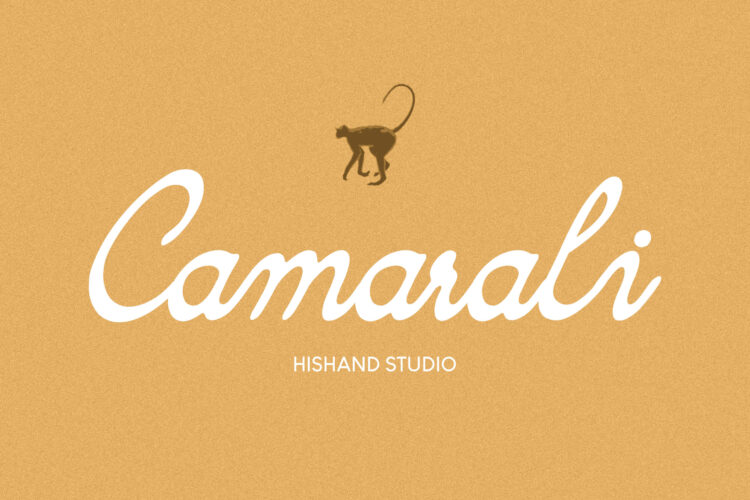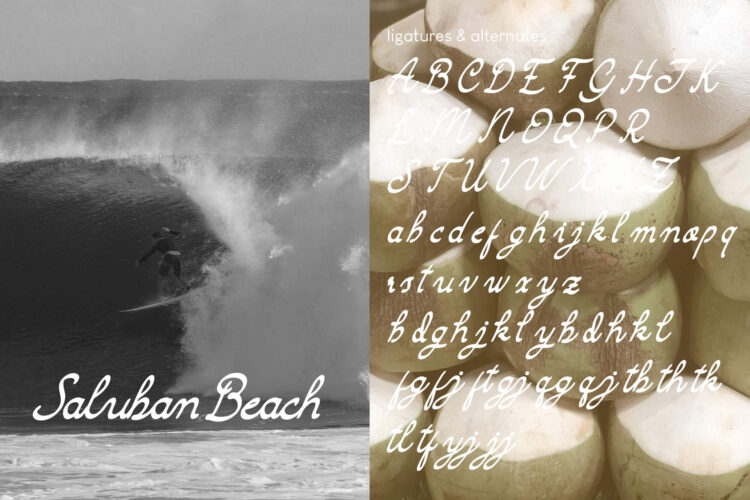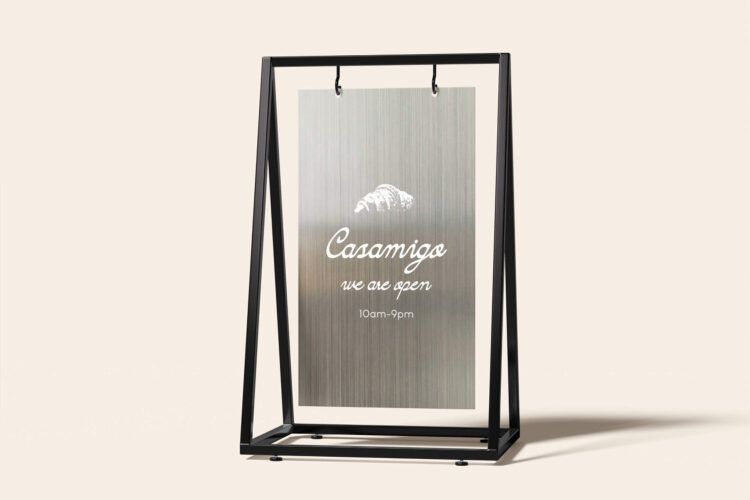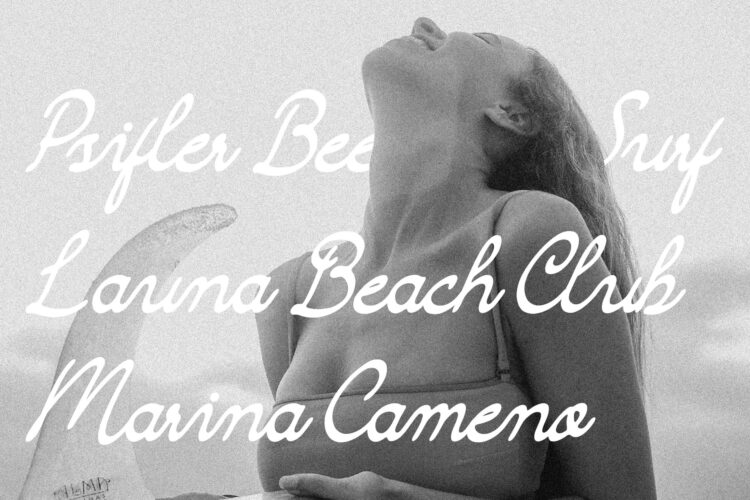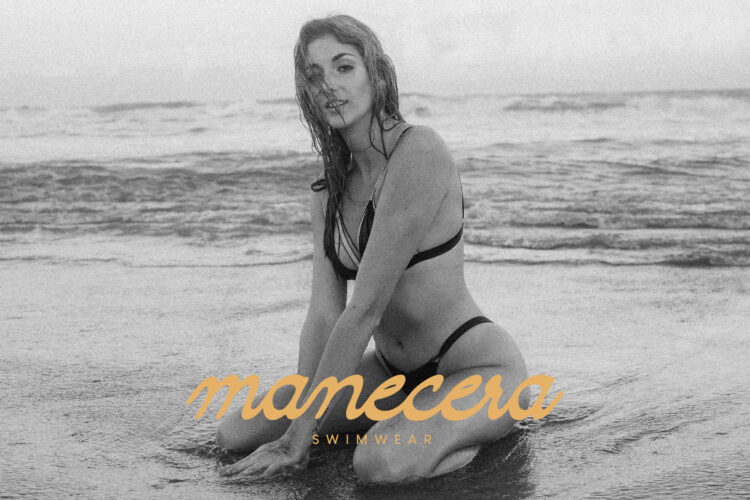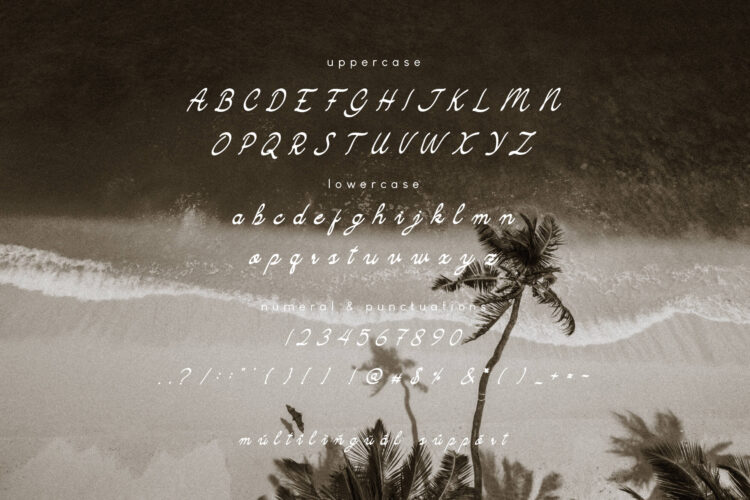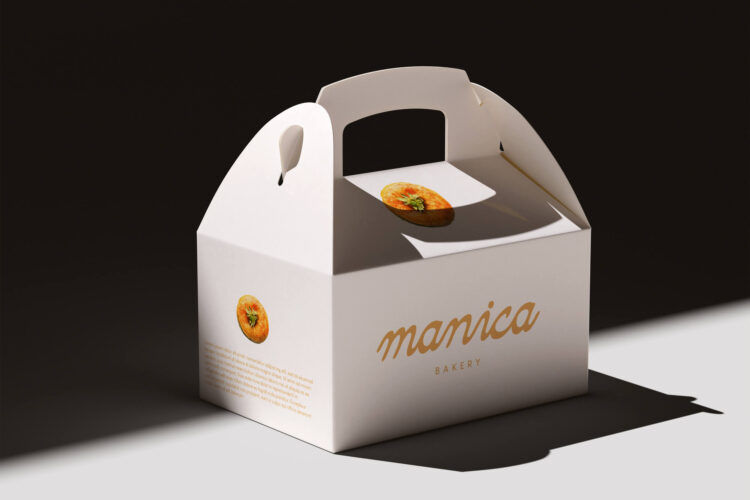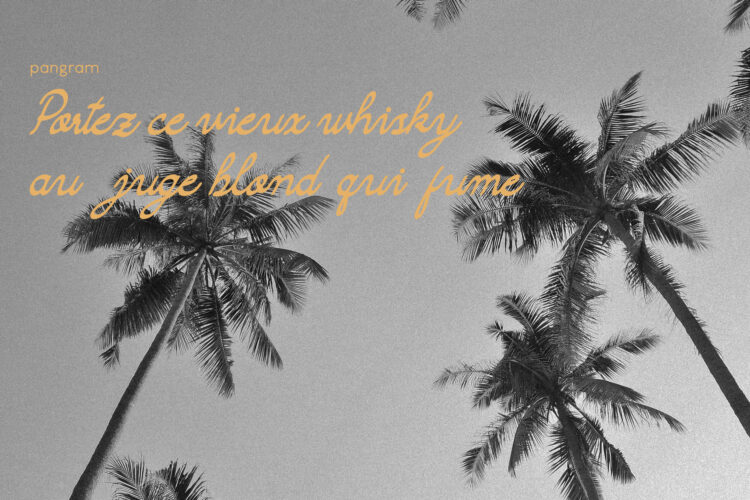
Camarali is a graceful handwritten script font that captures the essence of natural elegance and artistic expression. Designed with fluid strokes and gentle curves, it brings a sense of warmth and authenticity to any design it touches. Each letter flows seamlessly into the next, creating a harmonious rhythm that feels refined, balanced, and visually pleasing across different compositions. This smooth connectivity gives Camarali a distinctly human touch, echoing the beauty of real handwriting while maintaining a polished and consistent structure.
The subtle variations in line weight are carefully crafted, resulting in a soft, organic appearance that enhances its aesthetic charm. These delicate contrasts add depth and personality, making every word feel alive and expressive without becoming overwhelming. Despite its artistic nature, Camarali remains highly legible, striking a thoughtful balance between decorative style and functional readability.
Perfect for a wide range of creative applications, Camarali shines in branding projects, wedding invitations, social media graphics, logos, packaging, and editorial layouts. It effortlessly elevates visual content by adding a touch of sophistication and elegance, all while avoiding an overly formal or rigid impression. This makes it versatile enough to adapt to both modern and classic design themes.
Its well-proportioned letterforms ensure clarity at various sizes, whether used for headlines or supporting text. Camarali stands out for its ability to feel intimate yet polished, making it an excellent choice for designers who want to convey beauty, creativity, and emotional connection. With its modern handwritten appeal and timeless aesthetic qualities, Camarali Script Font offers a unique voice that enhances storytelling and visual identity in a subtle yet impactful way. It also pairs beautifully with serif or sans serif fonts, expanding its versatility and making it suitable for layered, dynamic, and professional design compositions across various creative projects and visual branding needs.
complete with
- uppercase
- lowercase
- ligatures
- alternates
- multilingual support